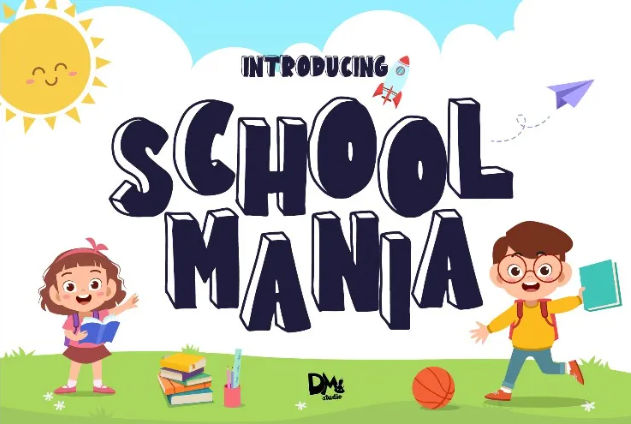
30 Best Fonts for SaaS Websites That Boost Conversion Rates
Choosing the best fonts for Saas websites is about balancing readability, aesthetics, and performance. Furthermore, if you’re aiming to grab a younger audience, a bit of flair is needed along with the usual professional look, here, we’ll explore understanding SaaS websites and how to personalize them.
Criteria for Selecting the Best Fonts for SaaS Websites
To invite the audience to use your services, there are several key factors to consider when selecting font type. They consist of readability and clarity, professional look, responsiveness, loading speed, and brand identity. However, focusing on these criteria too much can create a similar feel to other SaaS websites.
We can look at the popular choices for this endeavor which are popular for their clarity and modern appeal, as follows.
• Roboto,
• Open Sans,
• Lato,
• Source Sans Pro,
• Rosario,
• Khand,
• Cuprum,
• Alegreya Sans,
• Sarabun,
• Yantramanav,
• Jost,
• Cairo,
• Cabin,
• PT Sans, and
• Mukta.
By selecting a font for the Saas website that aligns with usability, branding, and performance needs, you can create a seamless and engaging user experience.
Our Take on the Best Fonts for Saas Websites
Based on those considerations and the popular demands, we’ve curated more stylish fonts to display on your websites. With our fun and engaging fonts, you can create more attractive websites. So, let’s meet them right away!
1. Rosa
The popular choices are mostly sans serif fonts, just like Rosa. Although using a similar typeface, this font leans more towards the classy and modern look.
2. Star Light
Star Light is an all-caps font with a captivating and versatile design to create an engaging visual. The font uses a serif style to evoke a professional look and better legibility.
3. Sticky Sugar
A simple and clean font like Sticky Sugar is a great option to build your website with. The font uses a tall, condensed look with unique and attractive letterforms.
4. La Rosie
If you’re aiming for a more natural touch but with modern looks, use La Rosie. This font utilizes all-caps letters with unique ligatures. Each letter has the perfect height and width, resulting in a well-balanced typography.
5. School Mania
School Mania is a 3D, blocky font that can be a vocal point in your website. This font can easily stand out, creating a clear hierarchy in your typographic sequence.
6. Simplicity
When clarity is what you’re looking for, Simplicity can cater to that. This handwritten font utilizes the monoline and a natural look. This typeface can evoke an inviting vibe, resulting in better conversion rates.
7. Kobo
Create a brighter personality in your SaaS websites with Kobo. This font has a subtle comical persona on top of its sleek and modern letterforms.
8. Nightmare
Nightmare is a serif font with a touch of creepy aura. This font has great readability with its elongated forms. A serif font like Nightmare is a better complementing element to the regular sans serif typefaces.
9. Sparkling Bright
If you’re an efficient designer type, a font duo Sparkling Bright is the perfect solution. In one pack, you can get 2 different typefaces, namely the serif and script fonts.
10. Menzanine
Menzanine is a textured stamp font, this font is a must if you want to create some stamp designs. With a stamp present on your website, it can boost your credibility and trust.
11. Scary House
Despite its spooky attributes, Scary House can be a stylish option for your Saas website font. This font has a great readability, attractive look, and clean letterforms.
12. Almond Caramel
Almond Caramel is a handwritten font with a simple appearance and subtle ornaments. This font has great readability with its sans-serif look and condensed letters.
13. Night Glow
Among our best fonts for SaaS websites, Night Glow has an enchanting look to complement the typical rigid typefaces. It uses bold brush strokes with a handwritten appearance.
14. Wild Hazelnut
As the name suggests, Wild Hazelnut has wilder letterforms than the other handwritten fonts. This font uses inconsistent letter sizes and dynamic strokes, creating an organic feel.
15. Lost Island
Just like the other popular fonts, Lost Island has a pretty rigid look, although always with a slight bend. This font utilizes a clean-cut finish with an angular look on its endings. Aside from the fun look, this font also evokes some tropical vibes.